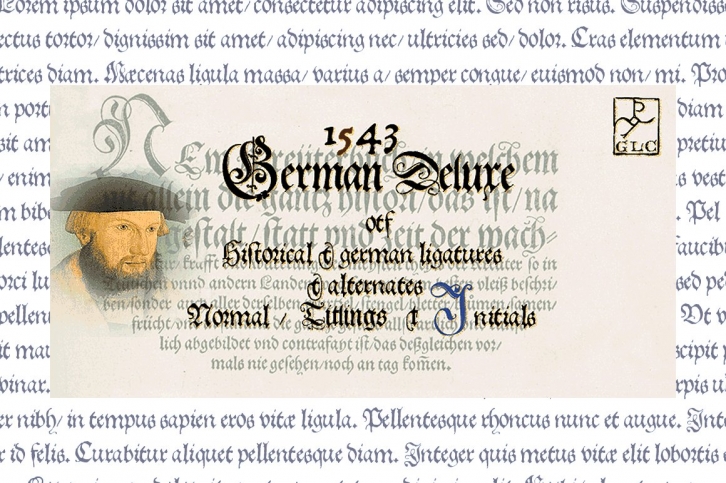
This family (Two complete files plus a limited Initials one) was created inspired from the sets of fonts used in 1543 by Michael Isingrin, printer in Basell (Germany) to print the splendid "New Kre¸terbuch..."("New herbal..."), with numerous nice pictures, the masterpiece of Leonhart Fuchs, father of the modern botany. It is a Schwabacher pattern, with three different sets of fonts, small (± 4mm for the upper case) in the main text, larger for titles (± 8mm for the upper case) and large Initials or lettrines (five lines of main text). This font contains standard ligatures and German historical ligatures ( german double s, long s, tz, ch,...) and diacritics (special umlaut "e superscript" and "∞" instead of dieresis with letters a, o and u,) naturely, we have added numerous letters lacking in the original to permit a contemporary use of the font.